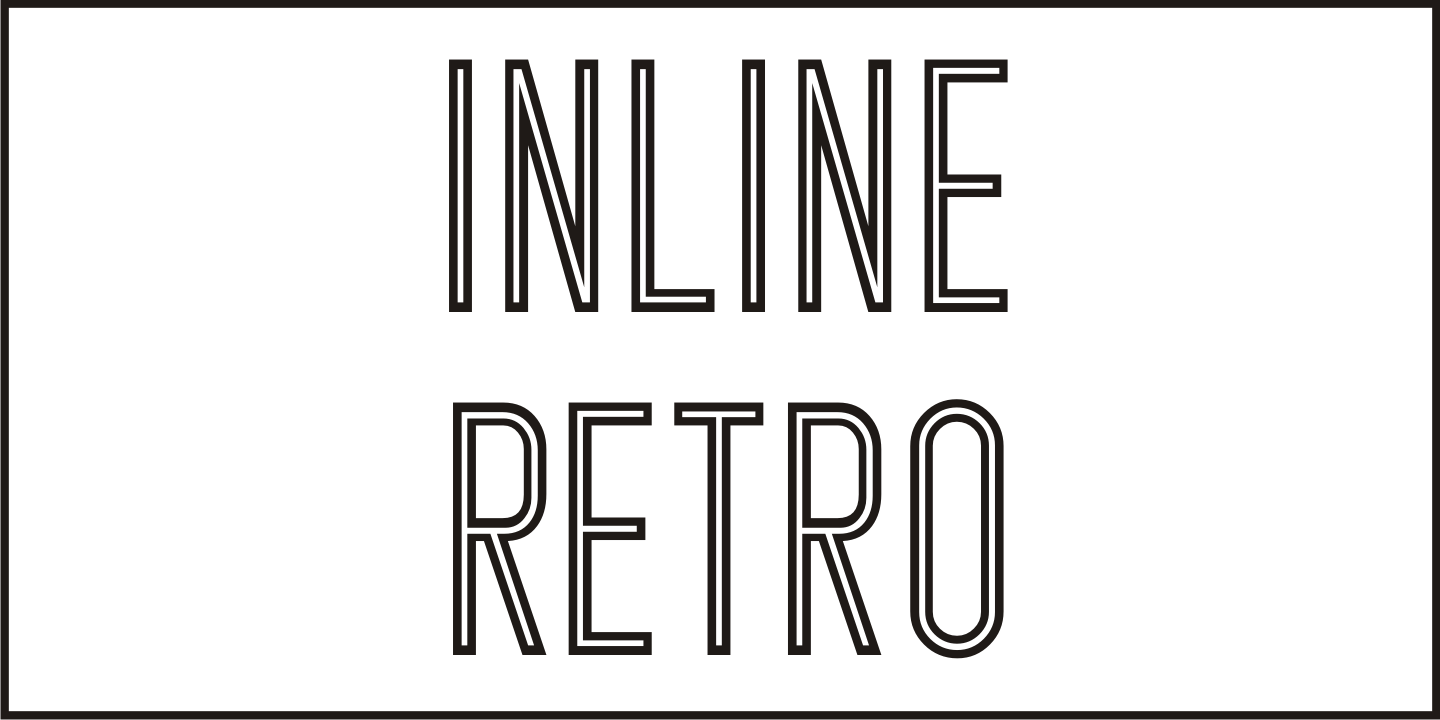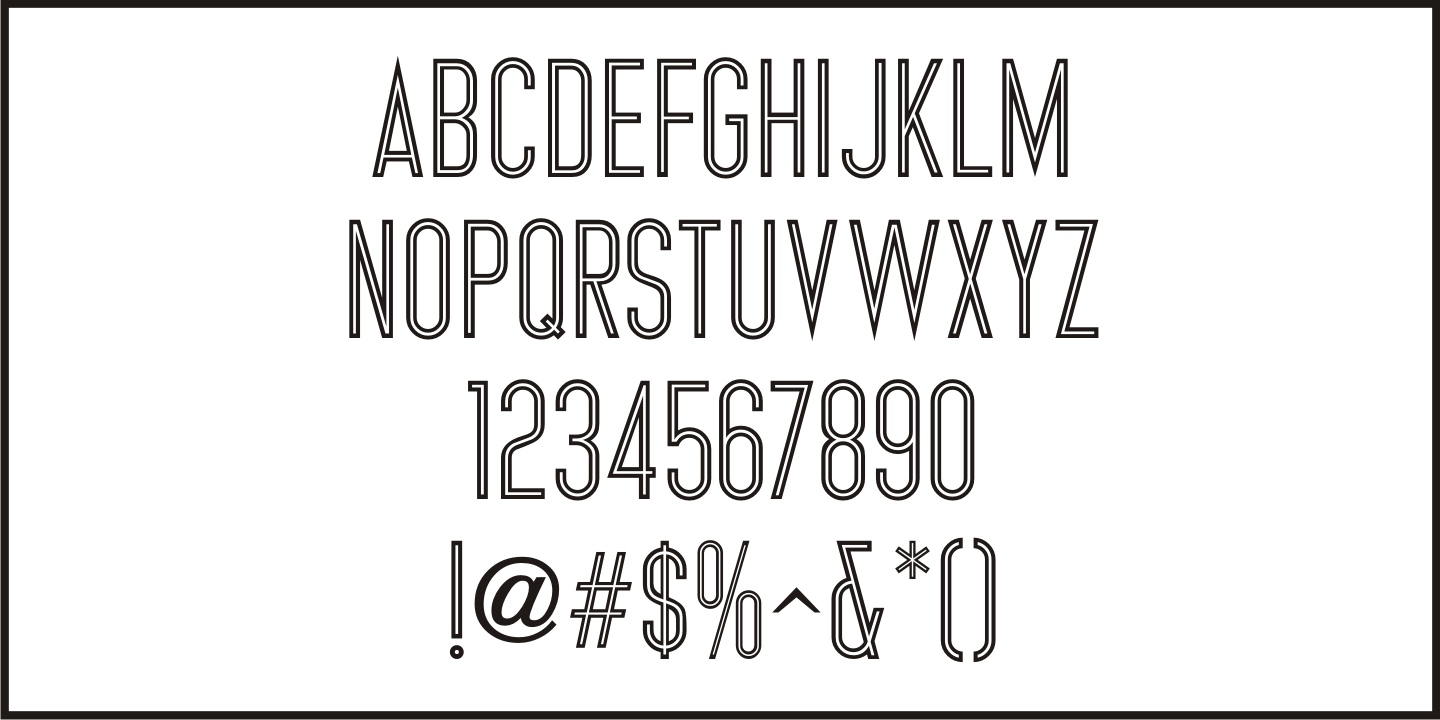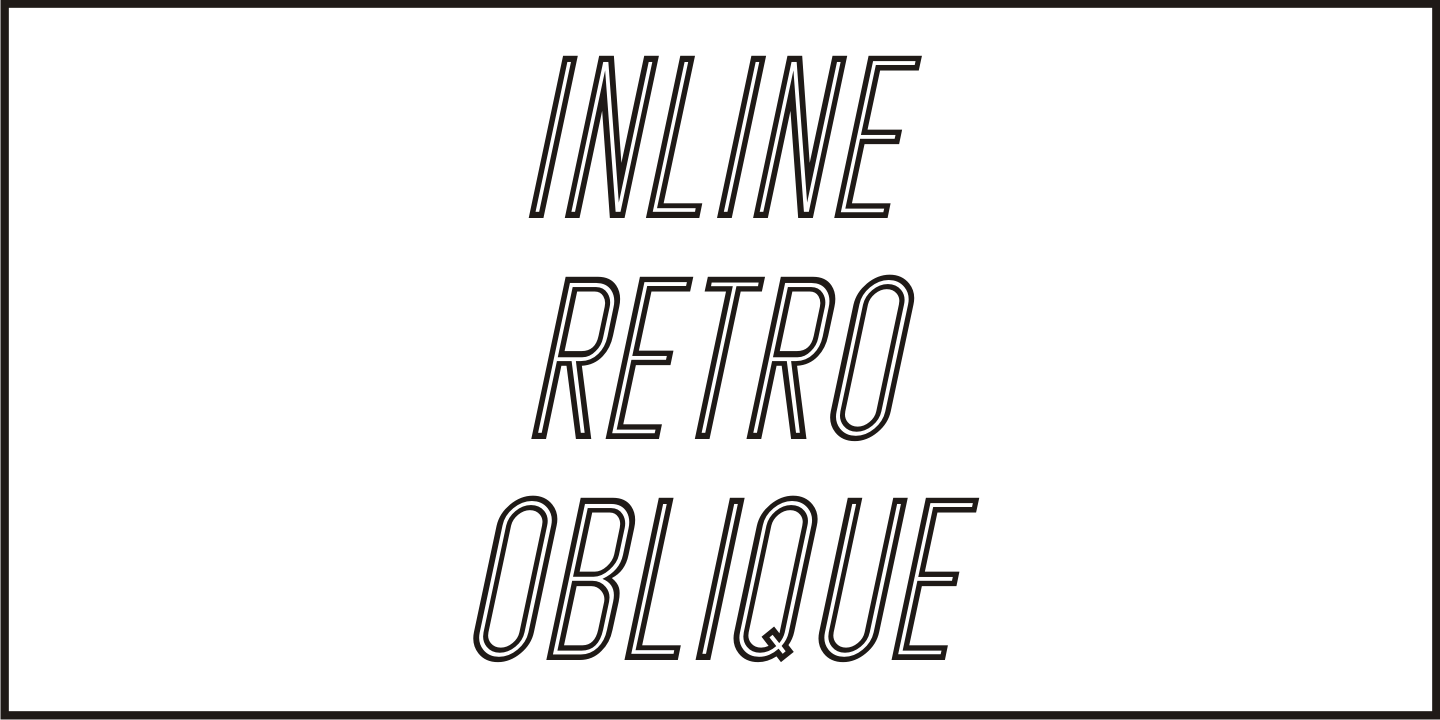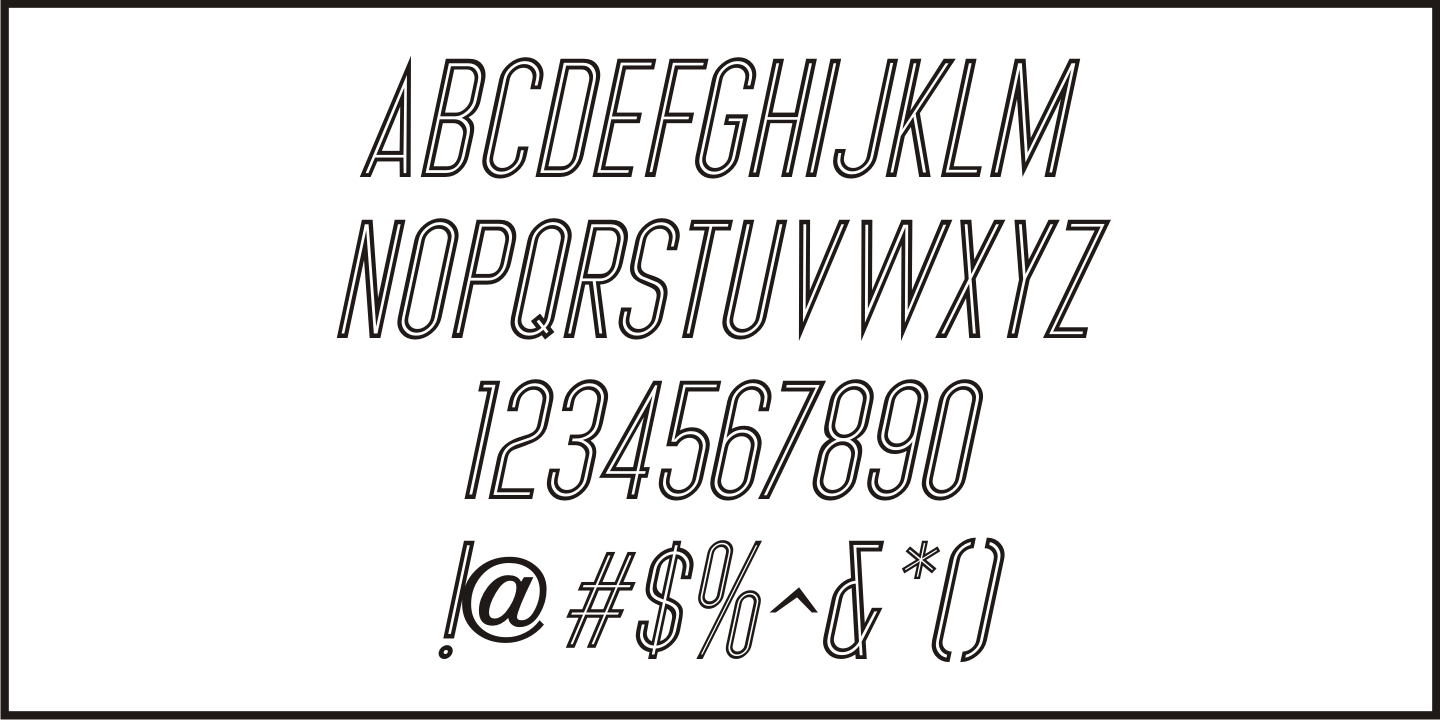
Inline Retro
Inline Retro JNL is Art Deco in style, featuring condensed characters and its namesake inline. While not a true revival of a vintage design, the same influences are utilized throughout the font to give it retro appeal.
Inline Retro JNL is available in both regular and oblique versions.
Inline Retro JNL Regular by Jeff Levine Fonts